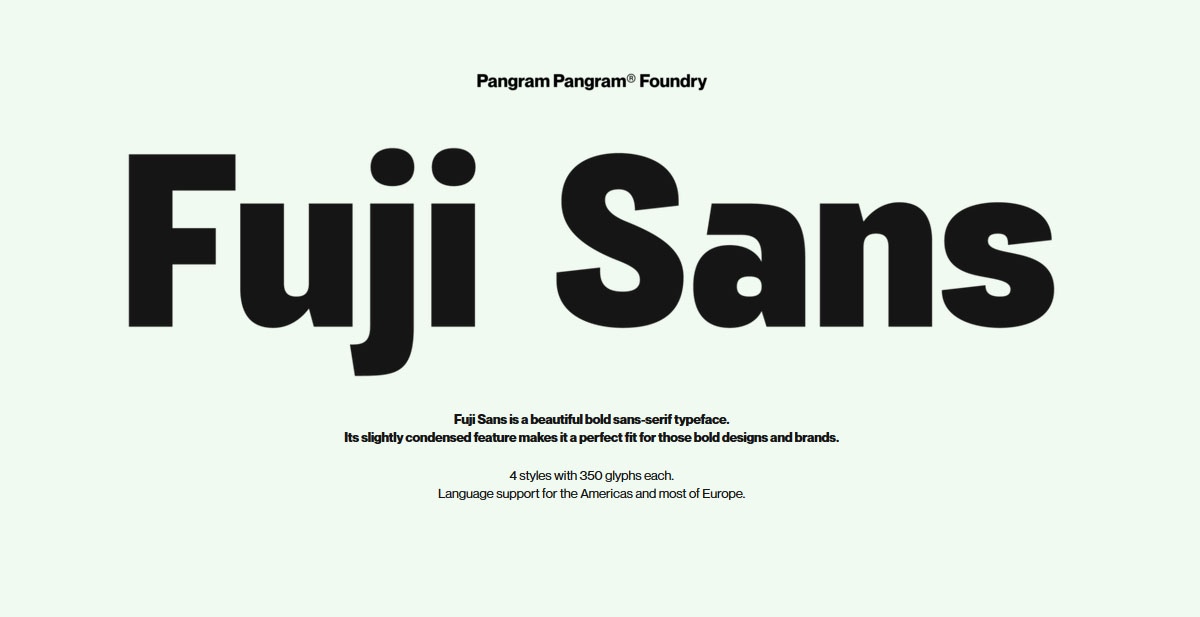
Fuji Sans Font
Fuji Sans Font is perfect for Japanese-inspired branding, minimalist design projects, zen wellness centers, modern architecture firms, contemporary art galleries, clean tech companies, meditation apps, sustainable product packaging, and sophisticated editorial layouts.
What makes Fuji Sans Font exciting is its harmonious balance that captures the essence of Japanese design philosophy through clean, purposeful letterforms. This distinctive sans-serif typeface embodies the principles of simplicity, functionality, and understated elegance that define contemporary minimalism. The font's serene character and precise geometry create a calming visual experience while maintaining excellent readability, making it perfect for brands seeking to communicate tranquility, quality, and thoughtful design.
The Fuji Sans Font family includes Ultra Light, Light, Regular, Medium, Semi-Bold, Bold, Extra Bold, and Heavy variants. Each weight preserves the font's zen-like character while providing comprehensive typographic options for sophisticated brand identity systems and diverse design applications.
Whether you're developing wellness brand identities, creating mindful marketing materials, designing sustainable packaging, or crafting meditation content, Fuji Sans Font delivers unparalleled calm and clarity. Its peaceful nature makes it ideal for spa brands, yoga studios, sustainable companies, and lifestyle brands seeking authentic minimalist representation.
The font's clean geometry and balanced proportions create an effortless reading experience that promotes focus and concentration. Each letterform has been meticulously crafted to eliminate visual noise while maintaining distinctive character that sets brands apart in crowded marketplaces.
This versatile typeface adapts beautifully to both digital and print environments, offering designers the flexibility needed for comprehensive brand storytelling. The extensive character set includes international language support and specialized symbols for global wellness and lifestyle market penetration.